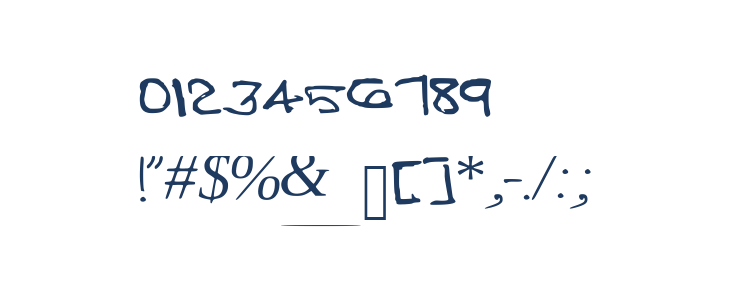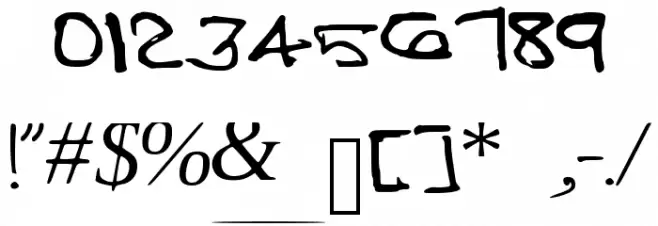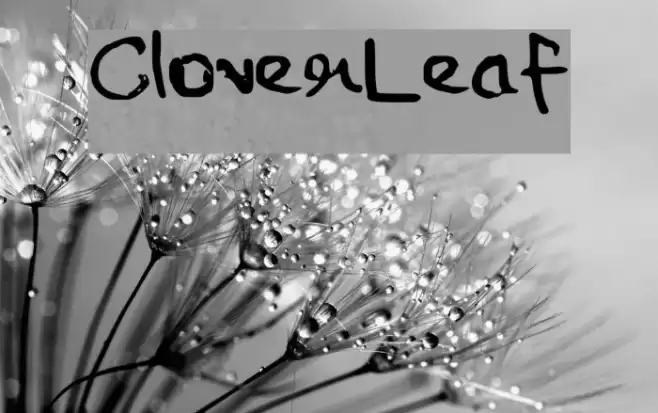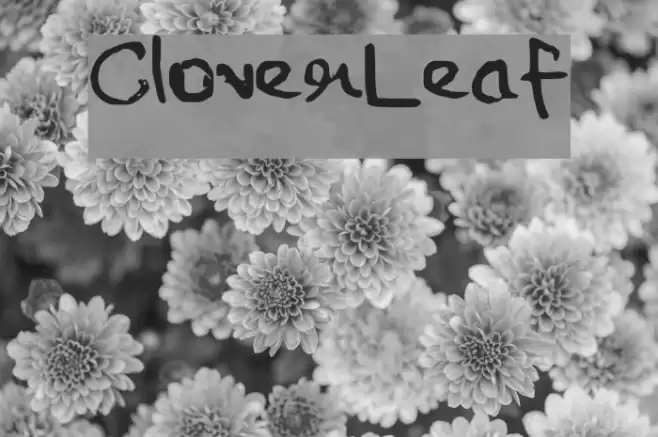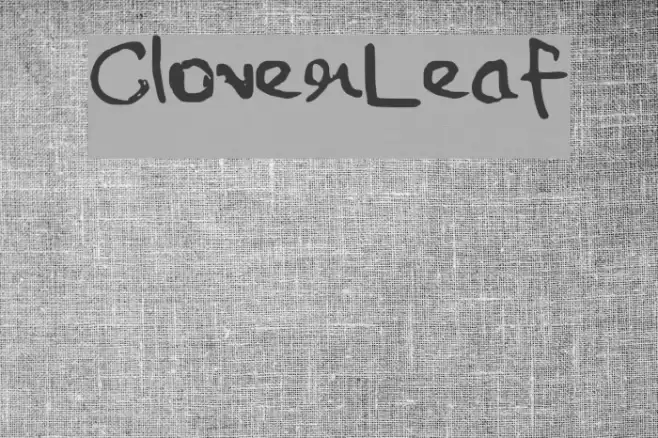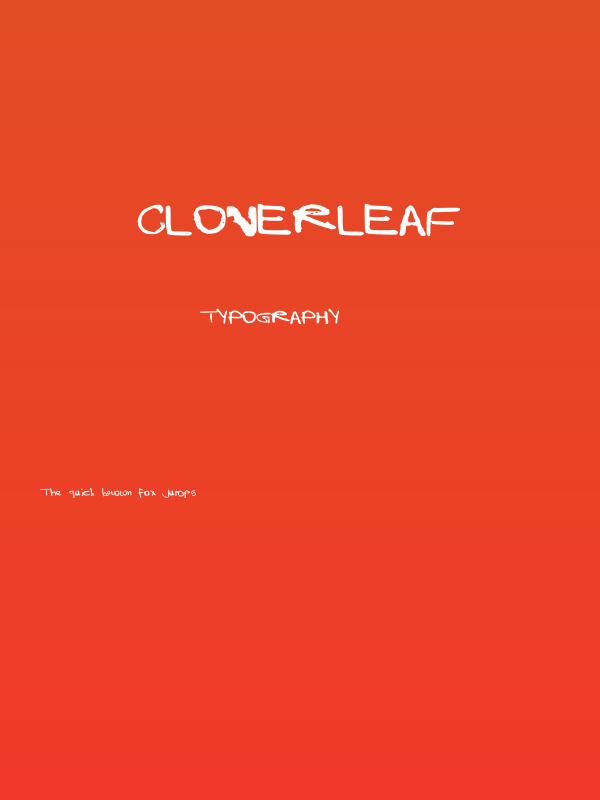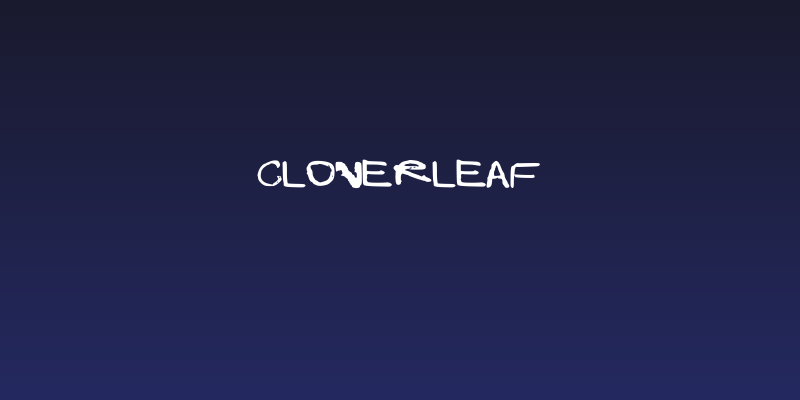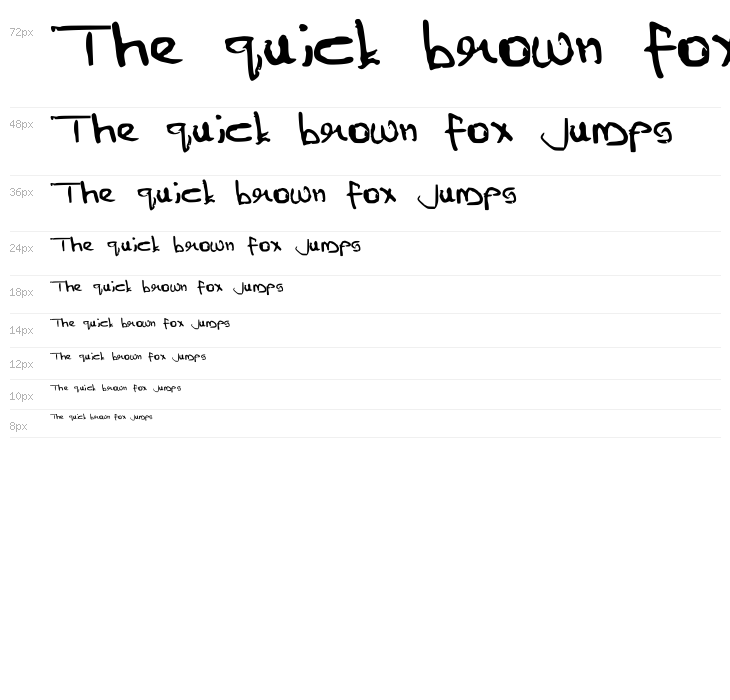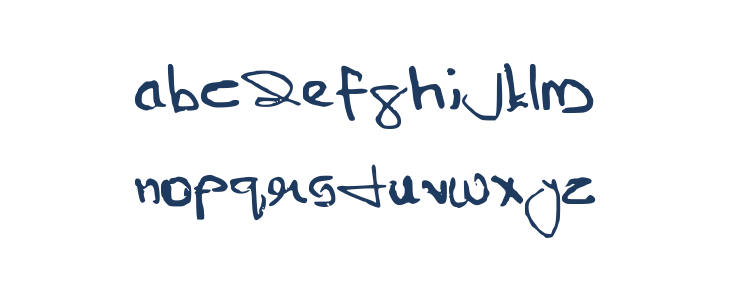
CloverLeaf Font
CloverLeaf Description
This font exhibits a playful and energetic handwritten style, characterized by its bold and expressive strokes. The letters have a dynamic flow, with varying thickness that adds a sense of movement and personality. The uppercase letters are bold and slightly irregular, giving a casual and informal feel. The lowercase letters maintain a consistent style, with some unique twists and loops that enhance the font's charm. Numbers are clear and legible, matching the overall style. Special characters are creatively designed, maintaining the font's lively and artistic essence.